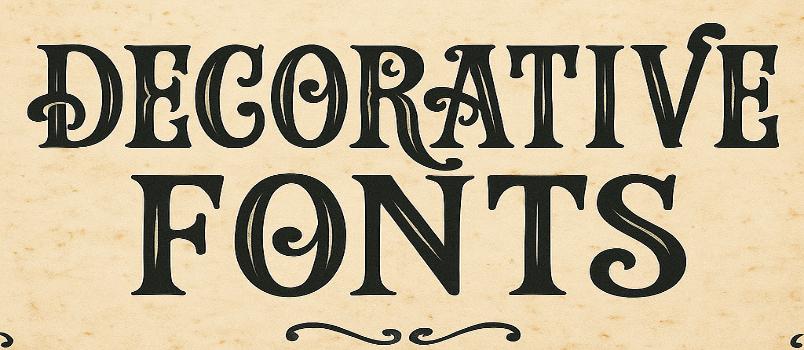
Decorative fonts have revolutionized the way we communicate visually, transforming plain text into powerful artistic statements that capture attention and convey emotion. In our increasingly digital world, where first impressions matter more than ever, the choice of typography can make or break a design project.
Choosing the Right Decorative Font for Your Project
Selecting appropriate decorative fonts requires careful consideration of multiple factors. The target audience plays a crucial role – fonts that appeal to teenagers might seem inappropriate for luxury brands targeting mature consumers. Cultural context also matters, as certain decorative fonts carry specific regional or historical associations.
Readability remains paramount, even with the most elaborate decorative fonts. A beautiful font that sacrifices legibility will ultimately fail to communicate its intended message. Successful designers often use decorative fonts sparingly, applying them to headlines or accent text while maintaining readable fonts for body copy.
The medium of presentation influences font choice as well. Decorative fonts that work beautifully in large print applications might become illegible when scaled down for business cards or mobile screens. Testing fonts across different sizes and contexts ensures optimal performance.
Decorative Fonts
Adam Gorry-Lights
Adam Gorry-Lights brings a luminous quality to text with its illuminated character design. This font captures the essence of vintage neon signage and Broadway marquees, making it perfect for headlines that need to shine. Its glowing effect adds warmth and visibility to any design, ideal for entertainment venues, festive announcements, or projects that require that extra sparkle.
A Ripping Yarn
A Ripping Yarn embodies the adventurous spirit of classic adventure novels and pulp fiction covers. With its bold, slightly weathered appearance, this font tells stories before you even read the words. It’s perfectly suited for book covers, movie posters, or any project that needs to convey excitement, mystery, and old-world charm.
A Star is Born
A Star is Born radiates Hollywood glamour and red-carpet elegance. This font captures the golden age of cinema with sophisticated letterforms that demand attention. Whether used for award ceremonies, luxury brand materials, or entertainment industry projects, it brings an unmistakable sense of prestige and stardom to any design.
Alaskan Nights
Alaskan Nights evokes the rugged beauty and mystique of the northern wilderness. With characters that seem carved from ice or etched by frost, this font brings the crisp, pristine feeling of arctic landscapes to your designs. It’s ideal for winter-themed projects, outdoor adventure branding, or any design that needs to convey strength and natural beauty.
Almonte Woodgrain
Alpha Flowers
Alpha Flowers transforms typography into a blooming garden with delicate floral embellishments integrated into each character. This ornate font brings feminine elegance and botanical beauty to designs, making it ideal for wedding invitations, spa branding, garden centers, or any project celebrating natural beauty and grace.
Amadeus
Amadeus channels classical elegance with refined letterforms that echo the sophistication of baroque and classical periods. Named after the musical genius, this font brings cultural refinement and artistic flair to designs. It’s perfect for concert programs, cultural institutions, luxury brands, or any project requiring timeless sophistication.
Anagram
Anagram plays with the puzzle-like nature of letters and words, featuring characters that seem to shift and rearrange themselves. This clever font brings intellectual playfulness to designs, making it perfect for educational materials, puzzle games, creative agencies, or any project that celebrates wordplay and mental agility.
Ange Gardien
Ange Gardien (Guardian Angel) embodies heavenly grace with ethereal, flowing letterforms that seem to float on the page. This spiritual font brings serenity and divine inspiration to designs, making it ideal for religious materials, meditation centers, wellness brands, or any project seeking to convey peace and protection.
Aquarium
Aquarium immerses viewers in an underwater world with fluid, bubble-like characters that seem to flow like water. This font captures the serene beauty of marine environments, making it perfect for aquatic centers, beach resorts, marine conservation projects, or any design that needs to evoke the calming presence of water.
Baby Block
Baby Block recreates the playful charm of children’s building blocks with soft, rounded letterforms that radiate innocence and joy. This font brings childhood wonder to designs, making it ideal for nurseries, children’s books, toy companies, or any project targeting young families and celebrating the magic of early childhood.
BackToSchool
BackToSchool captures the excitement and nostalgia of academic life with letterforms that evoke classroom chalkboards and school supplies. This font brings educational energy to designs, perfect for schools, tutoring services, educational apps, or any project that celebrates learning and intellectual growth.
The key to success lies in balancing creativity with functionality, ensuring that decorative fonts enhance rather than overshadow the message they’re meant to convey. As we look toward the future, decorative fonts will undoubtedly continue evolving, offering new ways to transform words into art and communication into experience.